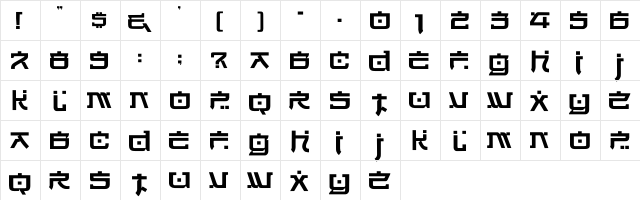
LHF Hiroshige Regular
| Foundry | Arthur Baker for Letterhead Fonts |
| Designer | Arthur Baker for Letterhead Fonts |
Design Context for LHF Hiroshige Typeface
LHF Hiroshige is a composed and adaptable typeface that performs quietly and consistently across a wide range of design contexts.